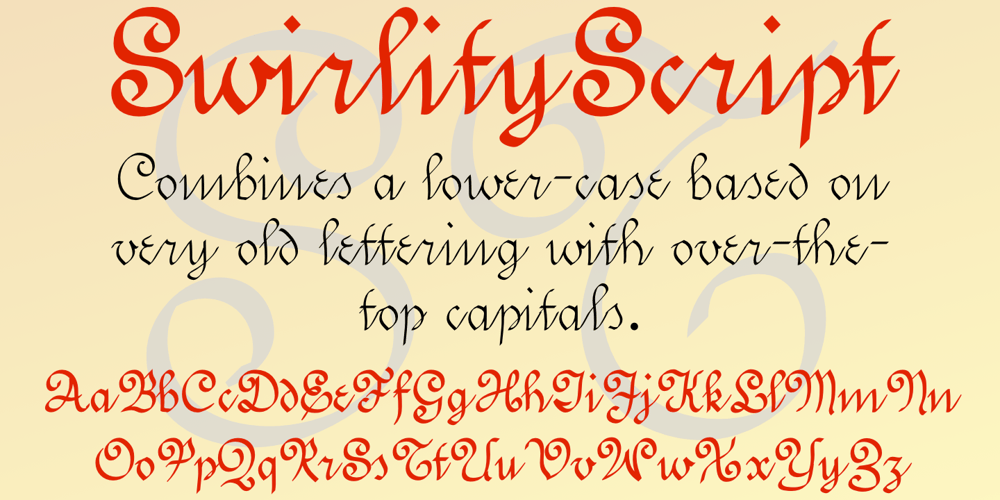
SwirlityScript Font Family was designed by Robert Schenk and published by Ingrimayne Type. SwirlityScript contains 2 styles and family package options. SwirlityScript takes an old (16th or 17th century) calligraphic script style and combines it with the caps from SwirlityText.